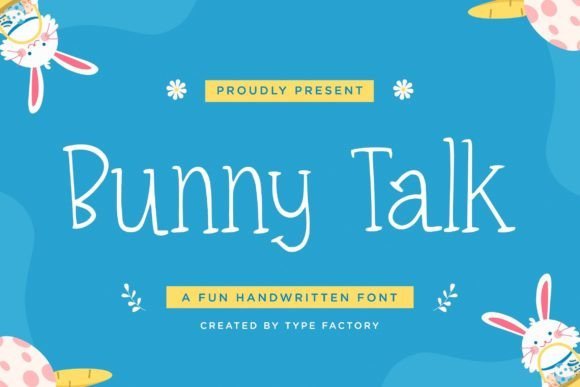
Get Ready for a Hopping Good Time with Bunny Talk Font
Have you ever been brainstorming ideas for a kids’ design project and suddenly, the perfect font pops into your mind? That’s exactly what happened to us when we stumbled upon the adorable Bunny Talk Font. This funny and modern handwritten font is the perfect addition to any kids-themed design, from coloring books to birthday invitations.
With Bunny Talk Font, designers can bring a touch of whimsy and fun to their projects. The font’s handcrafted design and PUA encoding make it easy to access all the amazing glyphs and ligatures, allowing for endless creative possibilities. Whether you’re working on a playground design or a kids’ show event, this font is sure to be a crowd-pleaser.
- Unique Characteristics: Bunny Talk Font features a playful and whimsical design, with rounded edges and soft lines, making it perfect for creating a friendly and approachable atmosphere.
Bunny Talk Font Review
I must say, I was excited to dive into the Bunny Talk Font. As a designer, I’m always on the lookout for unique and playful fonts that can add some personality to a project. ✨ The Bunny Talk Font certainly delivers on that front. Its whimsical feel and adorable characters are perfect for children’s books, nursery decor, or any other project that needs a touch of cuteness.
The font is well-designed, with each letter and symbol carefully crafted to maintain consistency throughout. The shapes are rounded and smooth, making it easy to read even at smaller sizes. ✨ The font also comes with a wide range of characters, including punctuation marks and symbols, which is a huge plus for designers.
- Rounded and smooth shapes make it easy to read
- Whimsical feel perfect for children’s projects
- Wide range of characters, including punctuation marks and symbols
- May not be suitable for formal or professional projects
- Some characters may be difficult to read at very small sizes
- Not as versatile as some other fonts in terms of font styles
The Bunny Talk Font is a fun and playful addition to any designer’s toolkit. While it may have some limitations, its unique charm and wide range of characters make it a great choice for projects that need a touch of whimsy. Overall, I’d give it 4 out of 5 stars – it’s a solid choice for designers looking for a cute and playful font.
Getting the Most Out of Bunny Talk Font
For the best results, use the Bunny Talk Font in conjunction with playful and whimsical designs.
Experiment with different font sizes and styles to add visual interest to your design.
Use the Bunny Talk Font in headings and titles to create a cohesive and recognizable brand identity.
The Bunny Talk Font is perfect for:
Children’s book illustrations
Toy packaging and branding
Whimsical website designs
Alternatives to Bunny Talk Font
Pacifico is a beautiful, elegant script font that is perfect for creating a whimsical and romantic feel in designs. It’s ideal for use in wedding invitations, baby announcements, and other special occasions where a touch of sophistication is needed. Compared to Bunny Talk Font, Pacifico has a more refined and polished look, making it suitable for a wider range of applications.